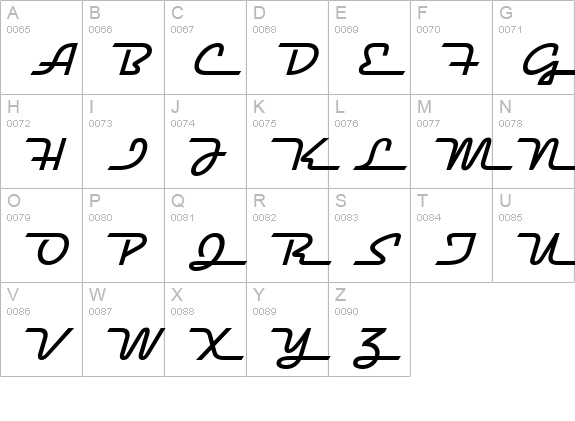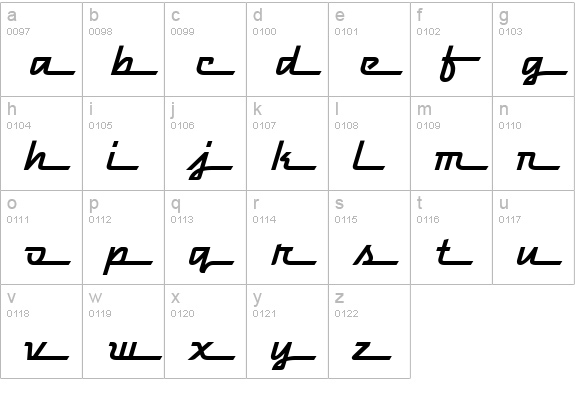
Raceway Medium is a balanced, medium-weight variant in the Raceway typeface family \xE2\x80\x94 well suited to sub-headlines, navigation, and balanced editorial work.
Raceway Medium is a captivating and dynamic font that effortlessly combines modernity with a touch of classic elegance. With its sleek and streamlined design, this font exudes a sense of energy and forward motion, making it perfect for a wide range of design projects. The medium weight of Raceway Medium strikes the perfect balance between boldness and readability, making it ideal for headlines, titles, and other attention-grabbing elements. Its clean and sharp lines ensure clarity and legibility, even at smaller sizes, making it versatile for both print and digital applications. But what sets Raceway Medium apart from other fonts is that it is completely free to download and use. Whether you're a professional designer, a hobbyist, or simply looking to add a touch of style to your personal projects, Raceway Medium is readily available at FontsMarket.com, where you can easily access and download it without any cost or hassle. With Raceway Medium, you have the freedom to elevate your designs without any constraints. Its availability as a free font enables you to experiment, explore, and create with confidence, knowing that you have a high-quality typeface at your disposal. So why wait? Unlock the potential of your designs with Raceway Medium, a font that combines elegance, versatility, and the added benefit of being freely available at FontsMarket.com. Download it today and embark on a creative journey that knows no bounds.